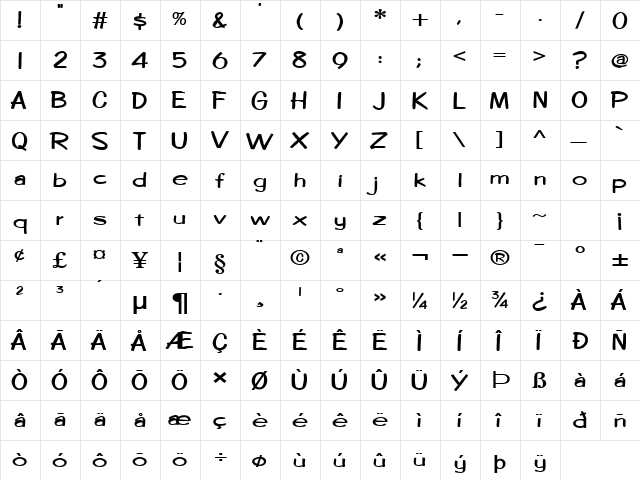
CopybookExtended Bold
Design Context for CopybookExtended Typeface
CopybookExtended takes a measured approach to typography — its balanced proportions and neutral character make it a reliable workhorse for both digital and print work. Its bold stroke weight gives it real presence on the page.